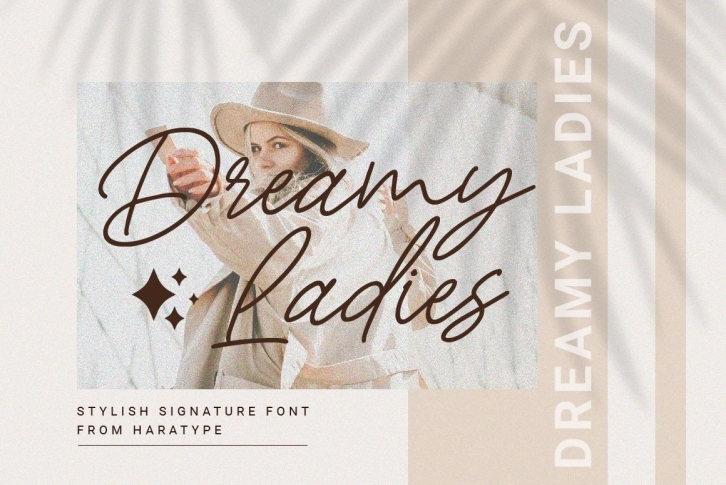
Dreamy Ladies is a slim and exquisite handwritten font. Stylish, graceful, and flowing, this font will definitely elevate the look of any of your beautiful creations while keeping them grounded and natural.